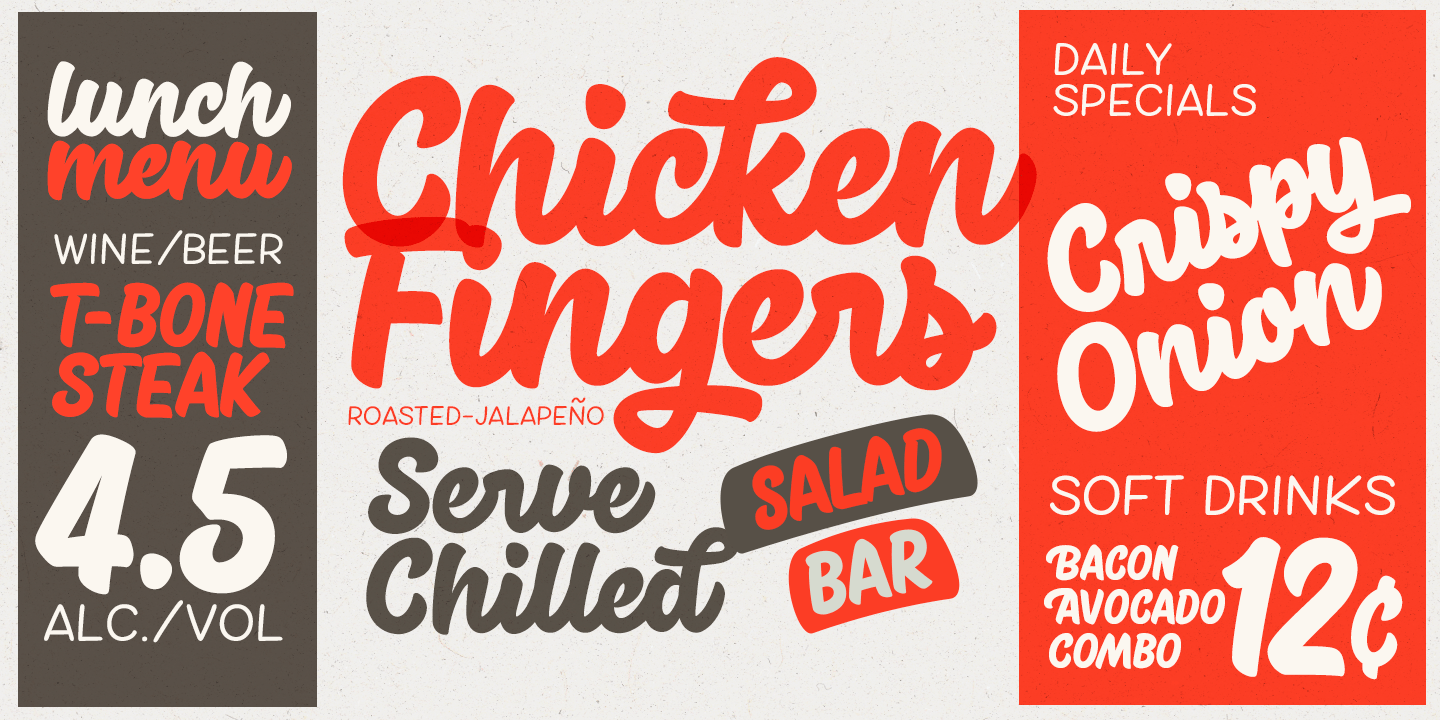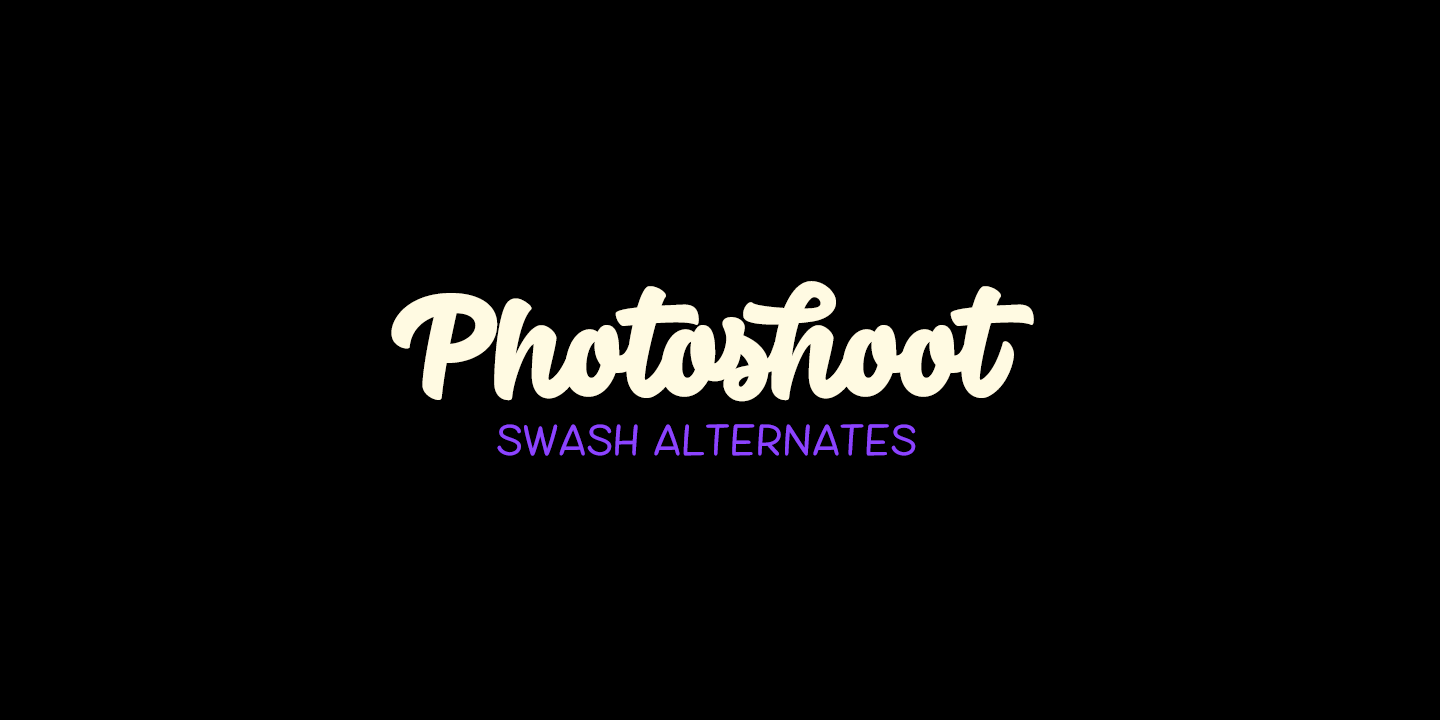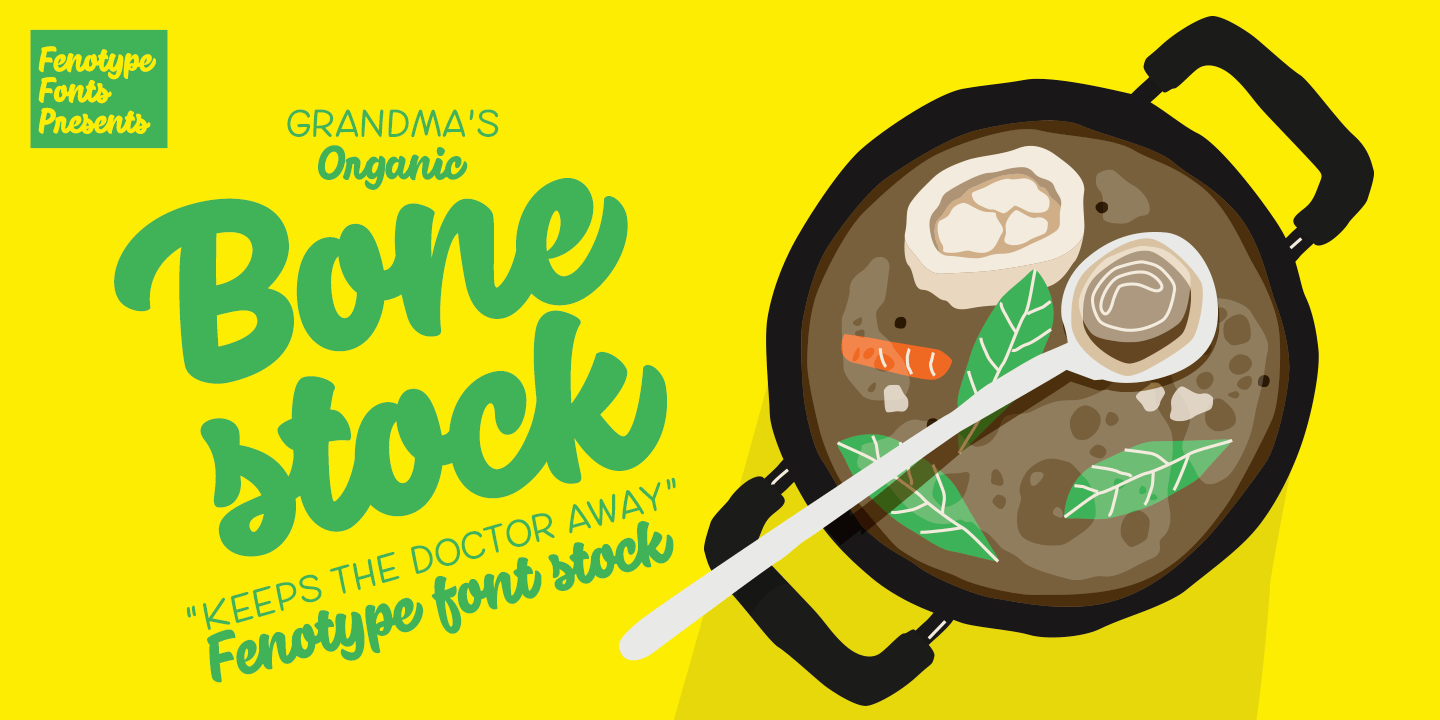
About Cherry Complete
Cherry is a bold and smooth display family with connecting script ?Brush? and supporting thin marker caps ?Sans?. In addition there is ?Extras? which is a set of strokes and ornaments designed to go with the fonts. Cherry Print is the same set with rugged…